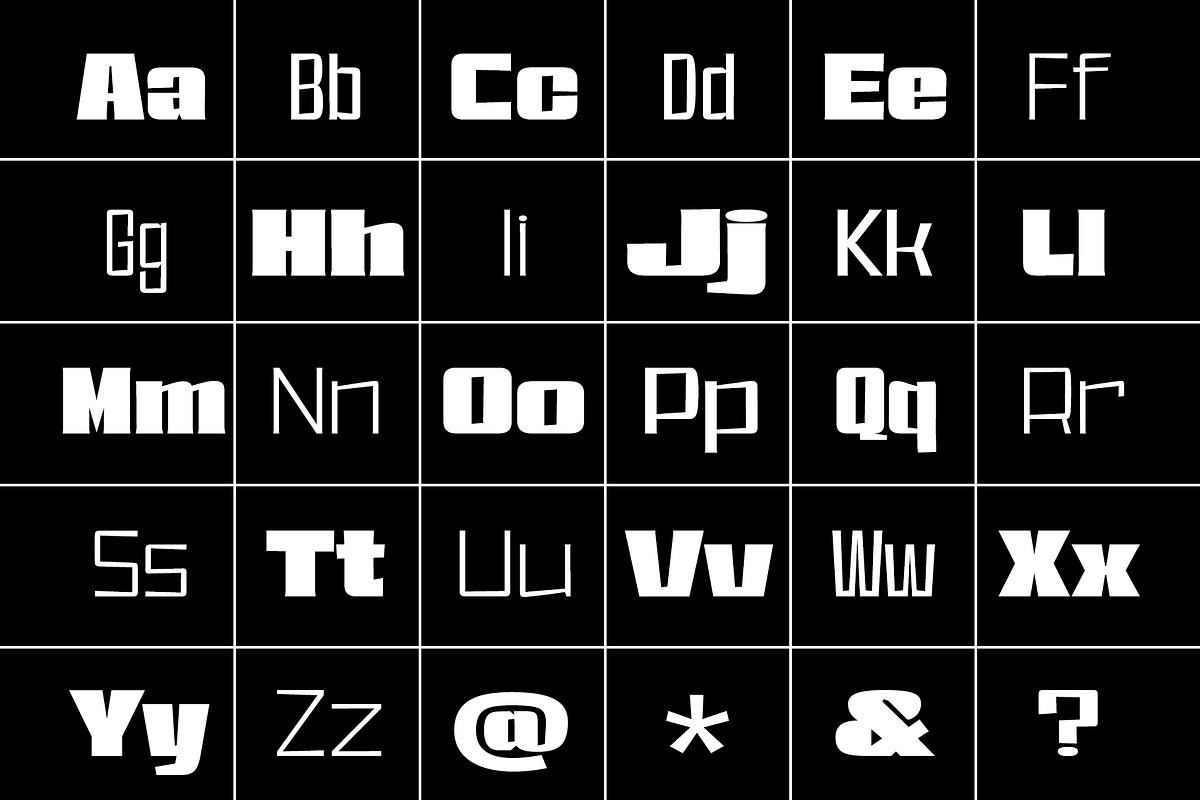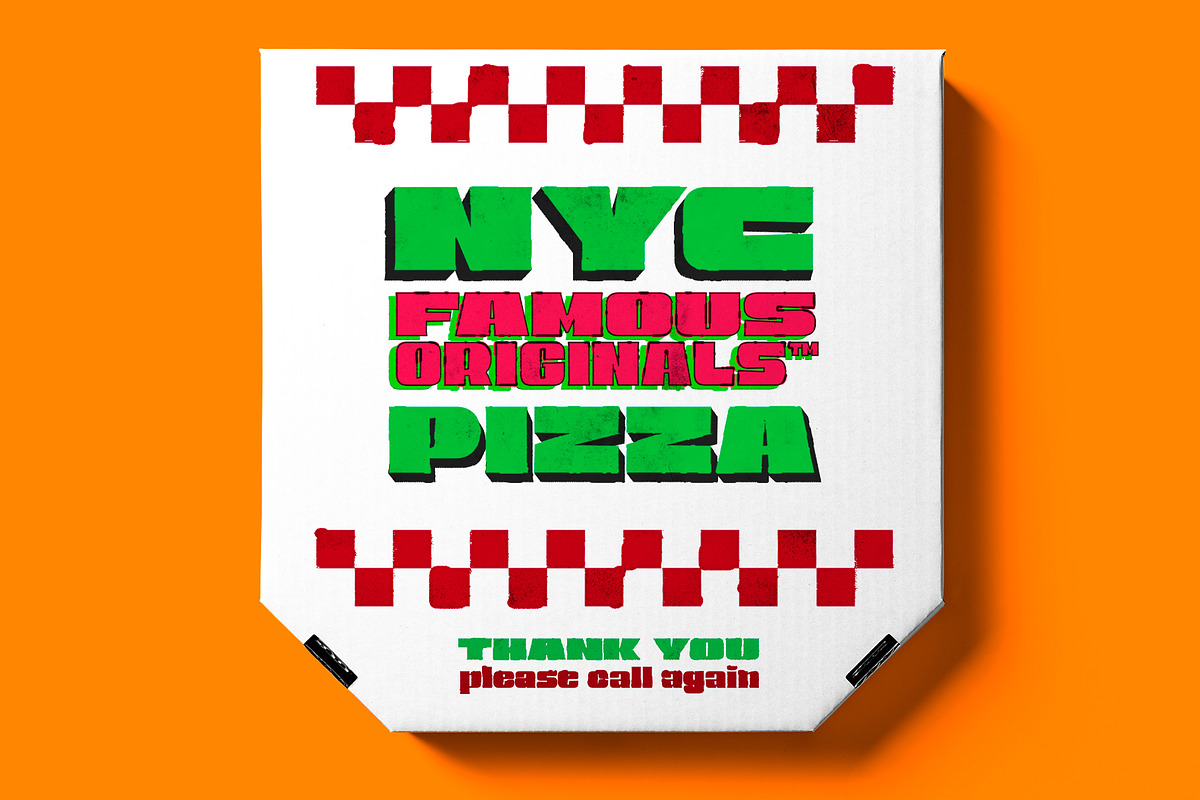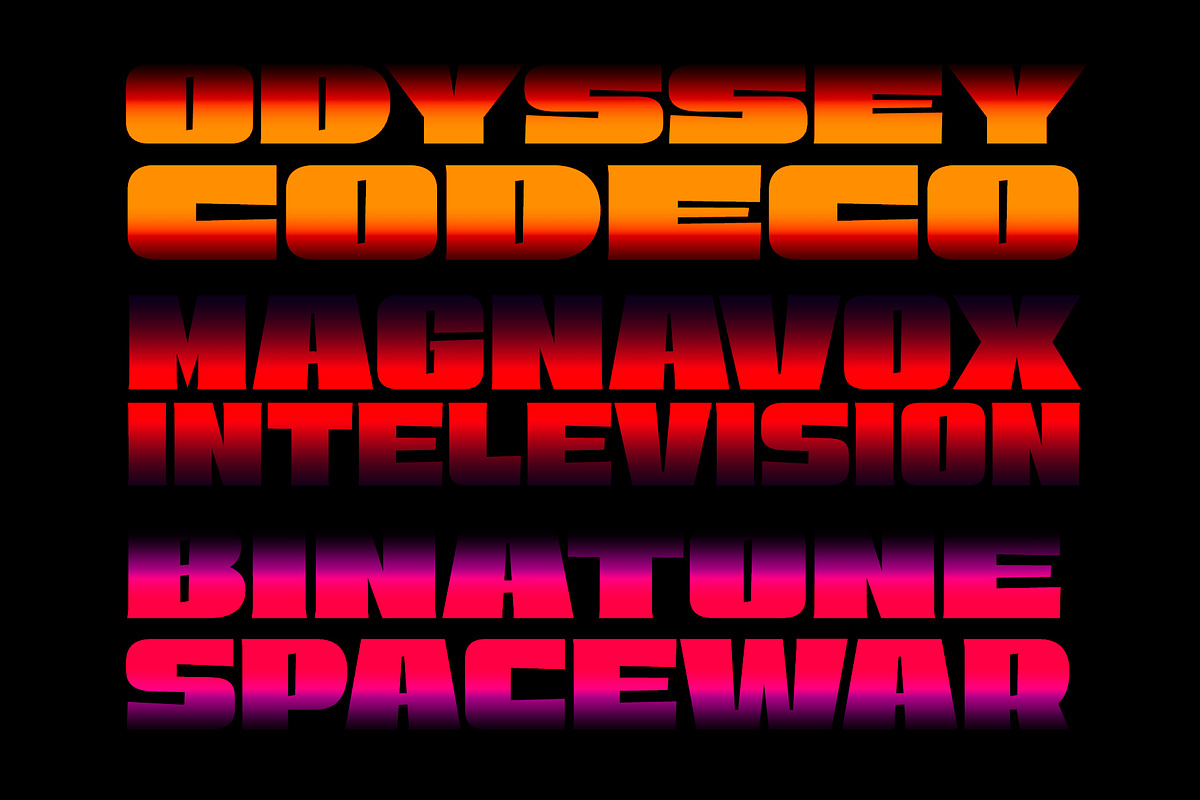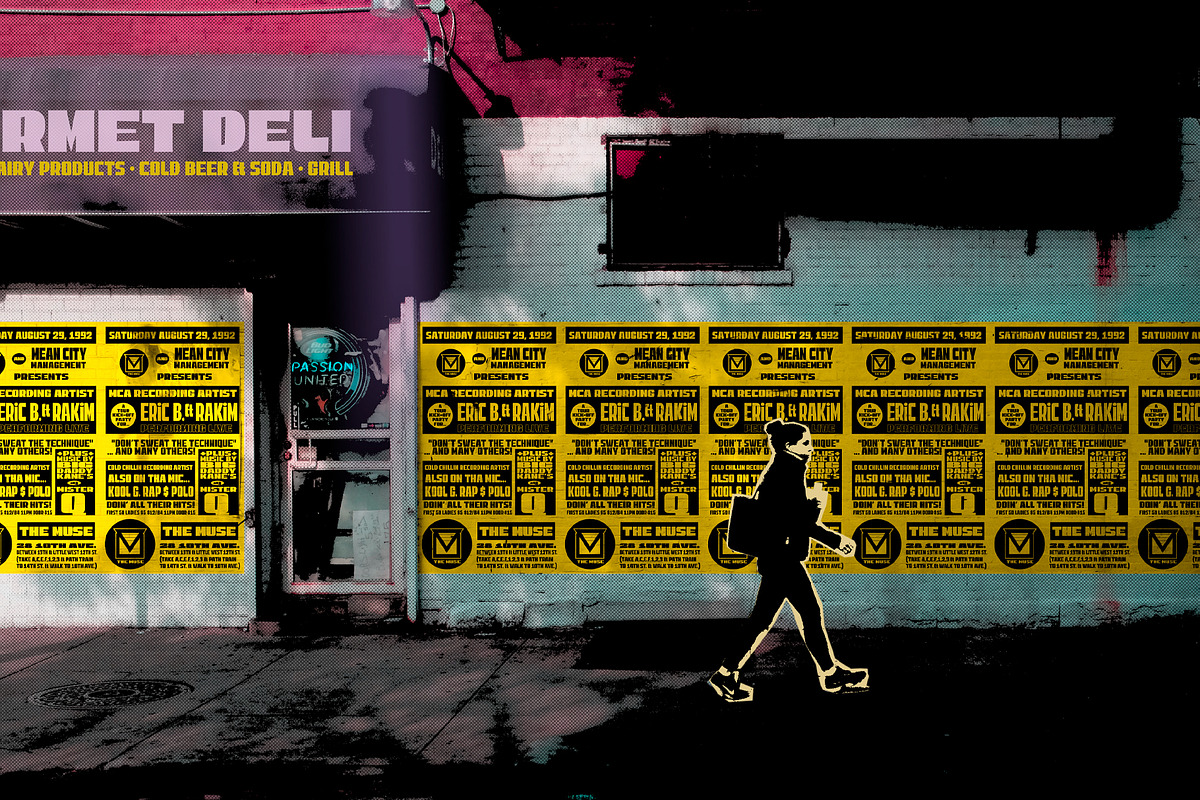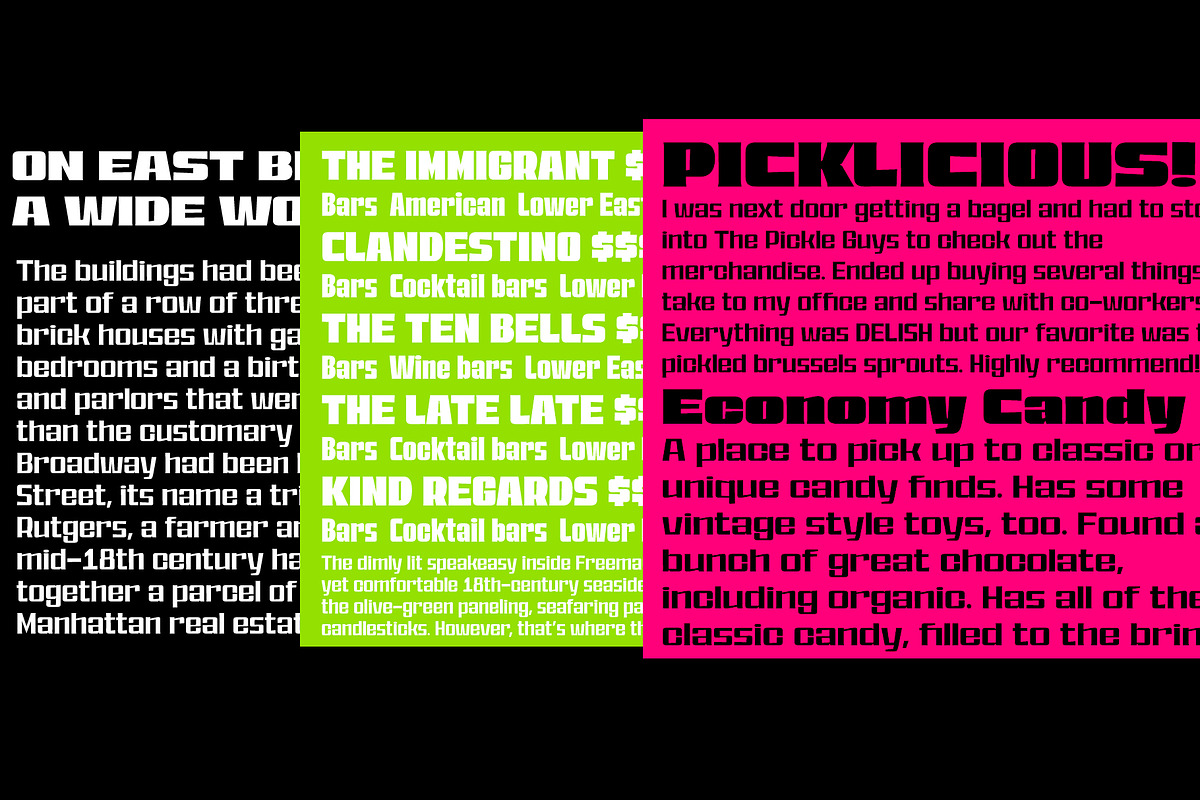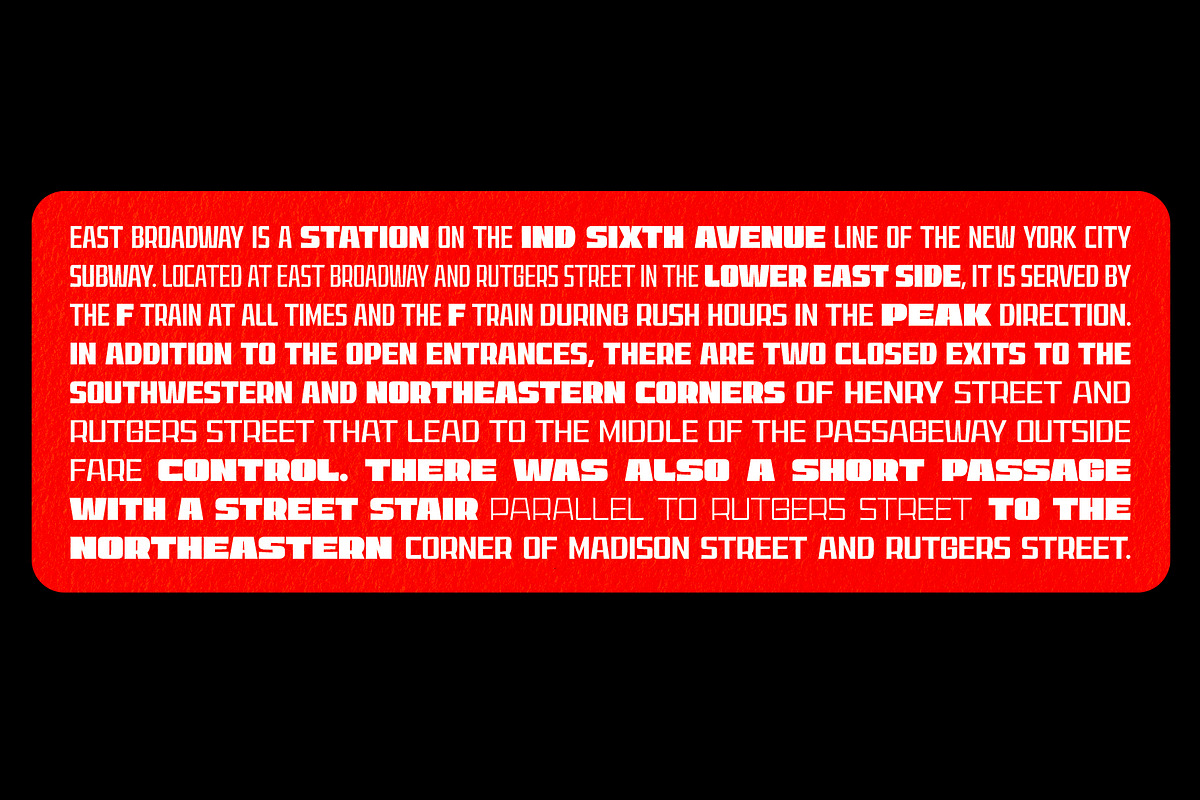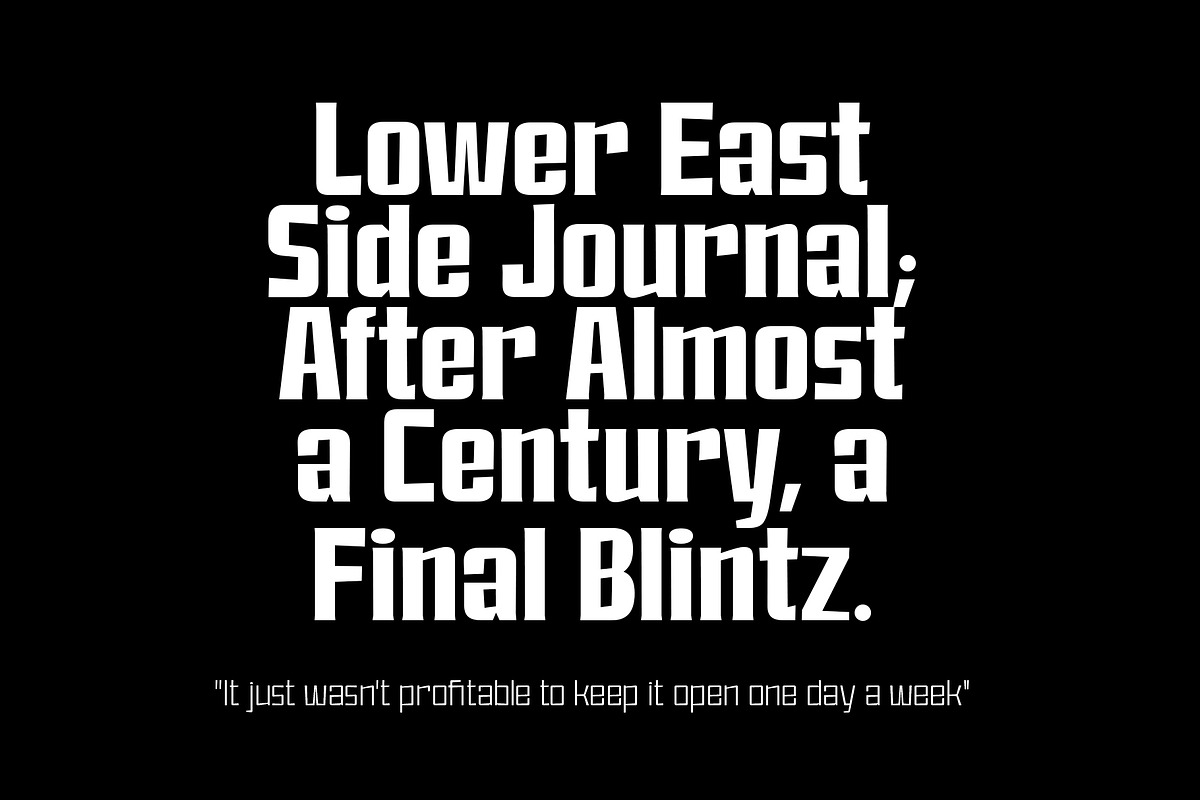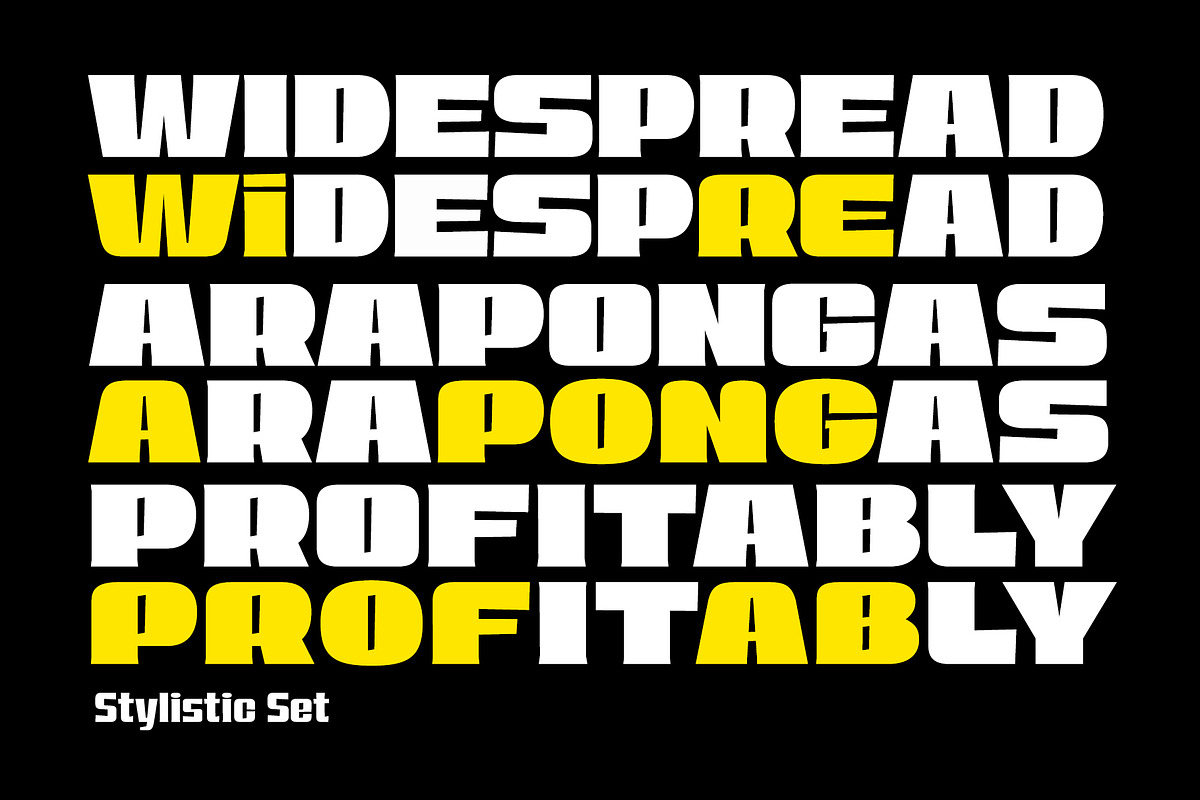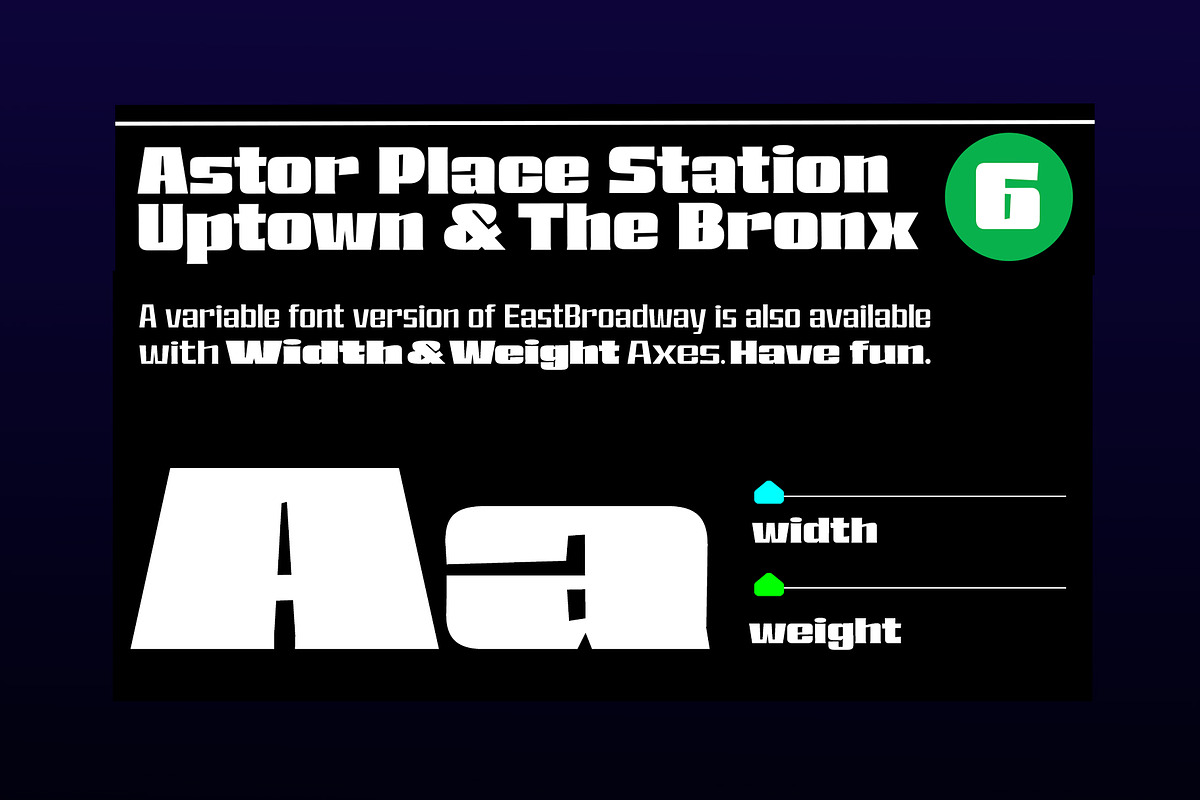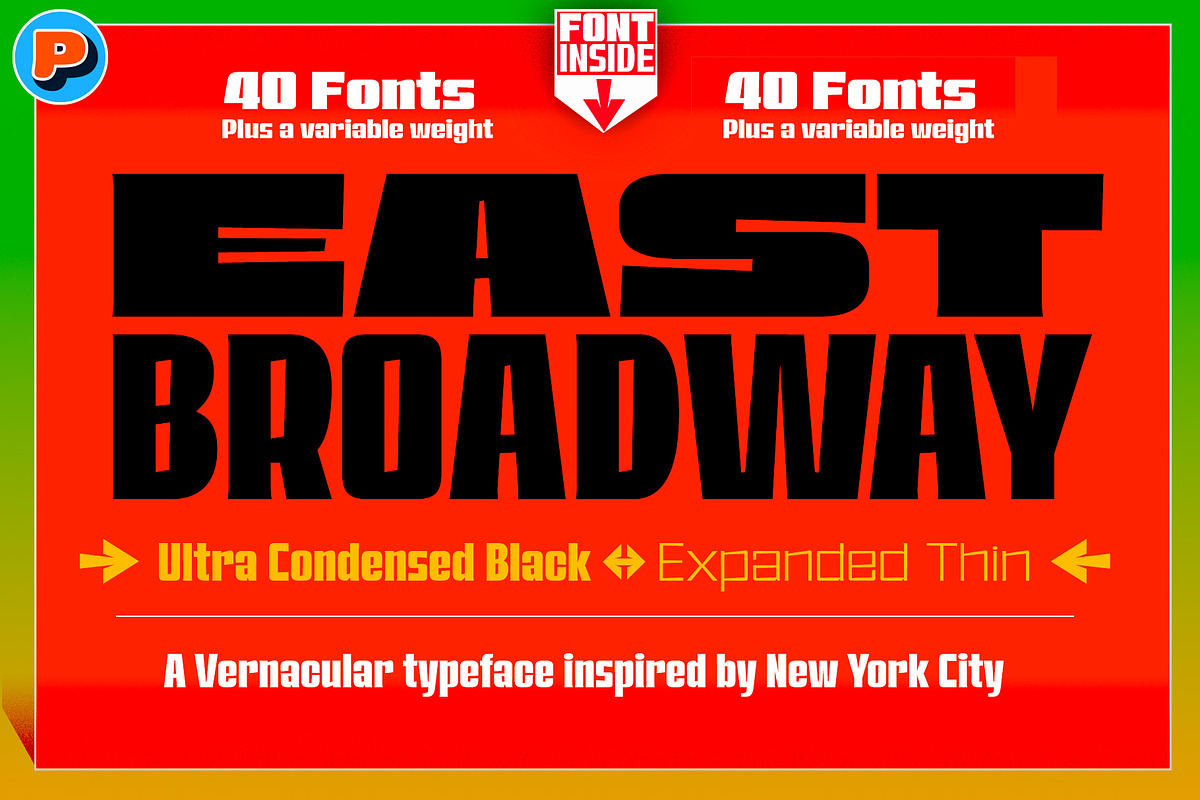
East Broadway, a NYC type.
A vernacular type in **NYC***
The East Broadway typography has its origin in some vinyl cutter letters that I found and collect some pictures in the Lower East Side neighborhood, from the EastBroadway subway station area to 13th Street and 1st Avenue in New York. A clash between an improvised craft made to elaborate fast and saving signs with a 40 weights type family + 1 variable font with weight and width axes, everything you need to make any word fit in your layout.